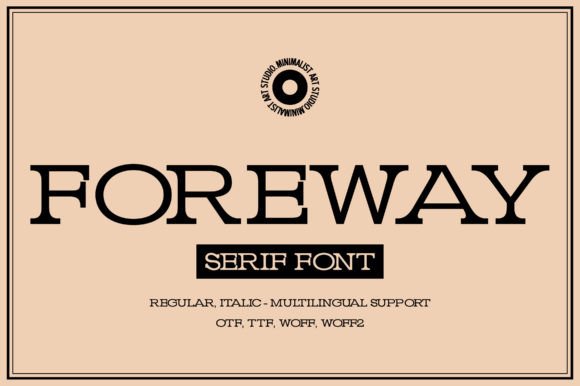
Introducing Foreway Font: Elevate Your Designs with Elegance and Sophistication
In the world of typography, fonts play a crucial role in shaping the visual identity of a brand or design. With thousands of fonts available, finding the perfect one that stands out from the crowd can be a daunting task. However, if you’re looking for a font that exudes elegance and sophistication, look no further than Foreway Font. In this article, we’ll explore the features and benefits of Foreway Font and how it can help you create unique and eye-catching designs.
What is Foreway Font?
Foreway Font is a serif font designed to help you create stunning designs that leave a lasting impression. Its elegant and sophisticated style makes it perfect for a wide range of applications, from print to digital media. Whether you’re designing logos, branding materials, packaging, or advertising, Foreway Font is the ultimate choice for those who want to stand out from the crowd.
Key Features of Foreway Font
- Elegant and Sophisticated Design: Foreway Font boasts a classic serif design that exudes elegance and sophistication.
- Versatile: Suitable for a wide range of applications, including print and digital media.
- Unique and Eye-Catching: Foreway Font’s distinctive style ensures that your designs stand out from the crowd.
- High-Quality: Foreway Font is designed to deliver exceptional results, with crisp and clear lines that look stunning in any context.
Design Applications for Foreway Font
Foreway Font is an incredibly versatile font that can be used in a wide range of design applications. Here are a few examples:
- Logo Design: Create a lasting impression with a custom logo designed using Foreway Font.
- Branding Materials: Elevate your brand’s visual identity with Foreway Font, perfect for business cards, letterheads, and more.
- Packaging Design: Make your products stand out on store shelves with eye-catching packaging designed using Foreway Font.
- Advertising: Create stunning ad campaigns that grab attention with Foreway Font.
Typography Tips for Using Foreway Font
To get the most out of Foreway Font, here are some typography tips to keep in mind:
- Pair with Sans-Serif Fonts: Combine Foreway Font with sans-serif fonts for a striking contrast.
- Experiment with Font Sizes: Play with different font sizes to create visual hierarchy and emphasis.
- Pay Attention to Line Spacing: Ensure optimal line spacing to enhance readability and flow.
Benefits of Using Foreway Font
So, why choose Foreway Font for your design projects? Here are just a few benefits:
- Enhance Your Brand’s Visual Identity: Foreway Font helps you create a unique and memorable visual identity.
- Stand Out from the Crowd: With Foreway Font, your designs are guaranteed to grab attention.
- Exceptional Quality: Foreway Font delivers high-quality results, every time.
In conclusion, Foreway Font is an elegant and sophisticated serif font that’s perfect for designers looking to create unique and eye-catching designs. With its versatile design, high-quality lines, and exceptional features, Foreway Font is the ultimate choice for a wide range of applications. Whether you’re designing for print or digital media, Foreway Font is sure to elevate your designs to the next level.